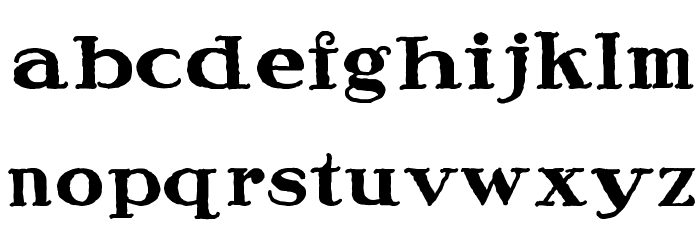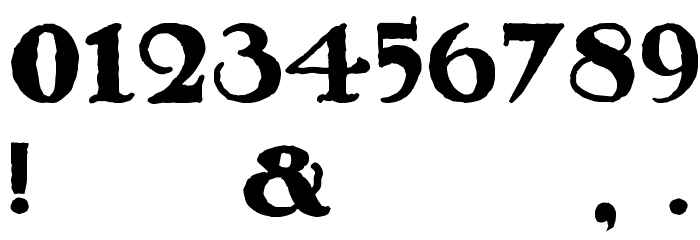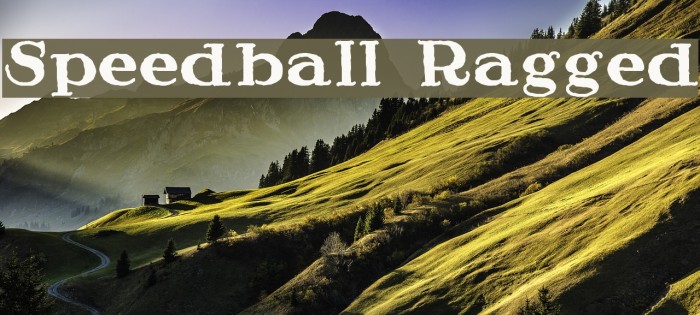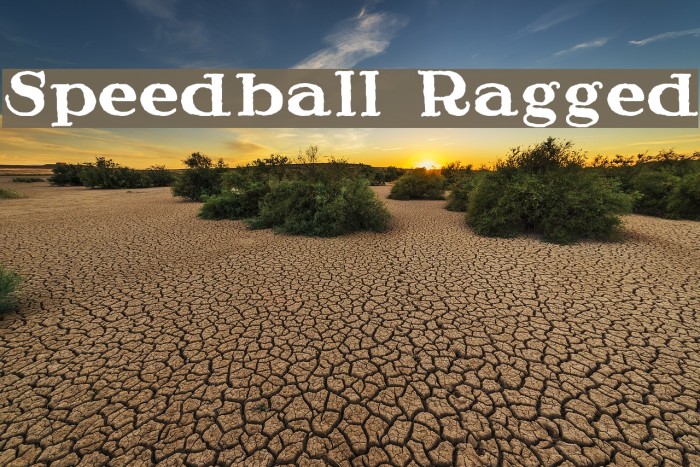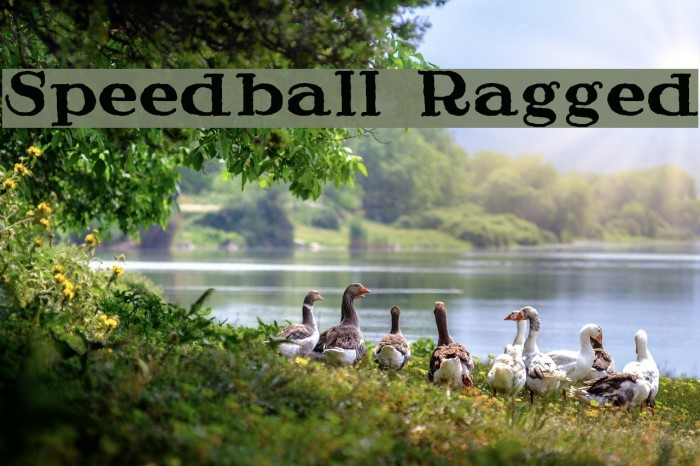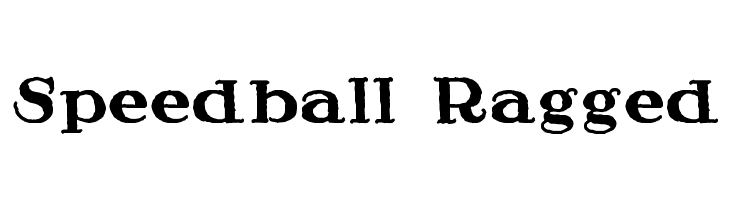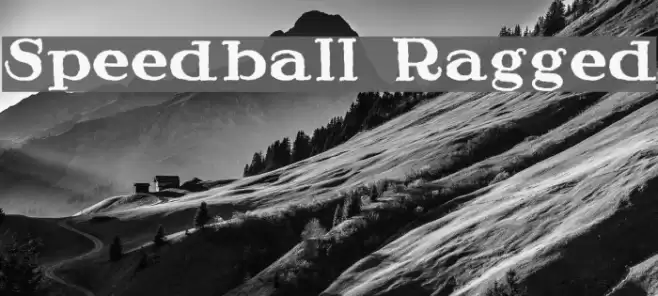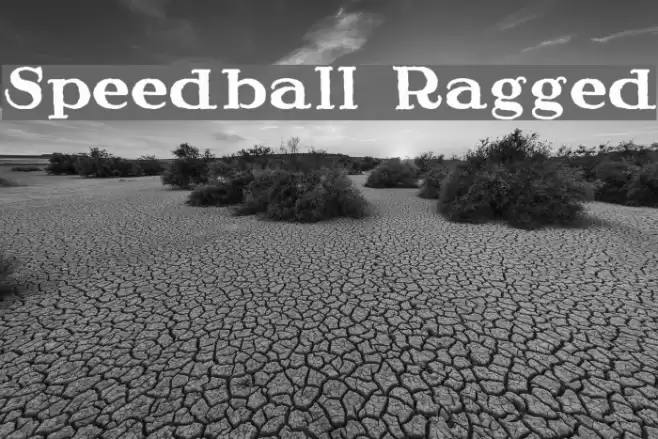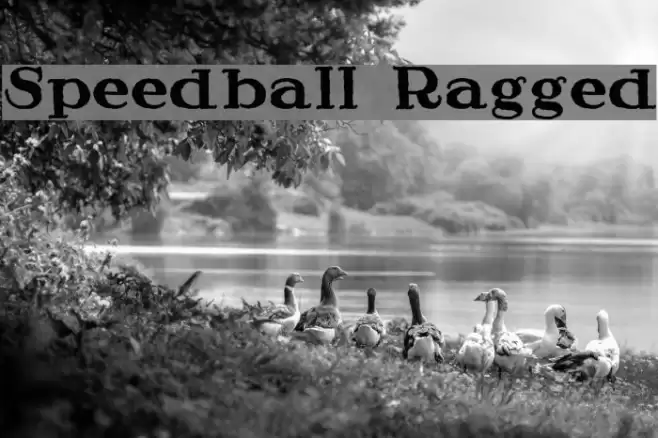
Speedball Ragged Font
This font features a rugged, textured appearance that gives it a hand-crafted, vintage feel. The characters are bold and slightly irregular, with a distressed look that suggests a sense of history and authenticity. The uppercase letters are strong and commanding, while the lowercase letters maintain a consistent style with subtle variations in stroke width. The numerals are equally bold, maintaining the textured aesthetic. Special characters like the ampersand and exclamation mark are uniquely styled, adding to the font's overall charm. This font's distinctive style makes it ideal for projects that require a touch of nostalgia or a handcrafted look.
A bold, textured font with a vintage, handcrafted appearance.
- Proposed Projects: Ideal for vintage-themed posters, logos, packaging, and branding materials that require a rustic, authentic touch.
- Overall Style: Vintage
- Use Case: Logos, Posters, Branding